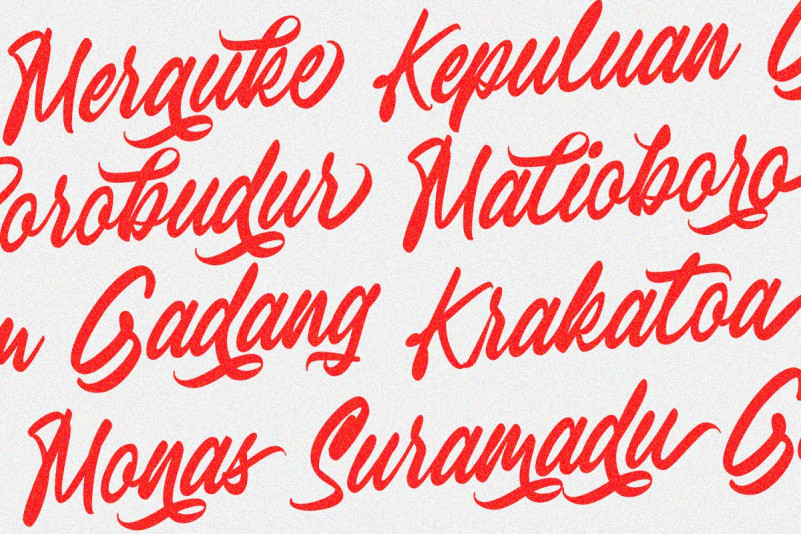
Bravenheart Script Demo Font
This is brush calligraphy typeface, inspired by hand lettering brush style that moves in clean. Introducing Bravenheart Font. It’s designed and shared by Moovied Co.. Bravenheart Script is carefully script typeface with stylist style, clean, and style a script handlettering style. Ideal for branding, logos, handwriting quotes, product packaging, headers, posters, merchandise, social media Books / Cover titles, special events, etc.